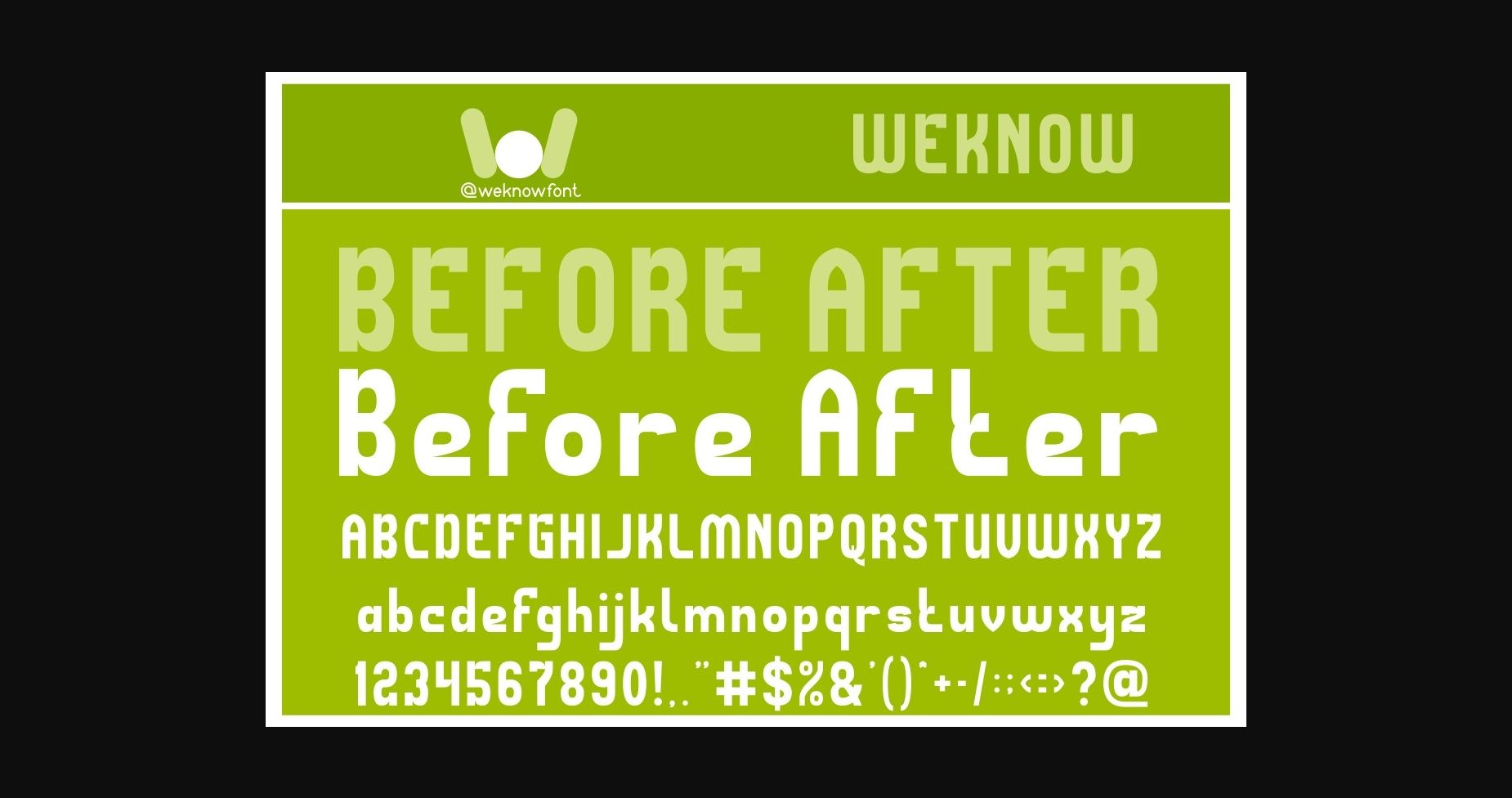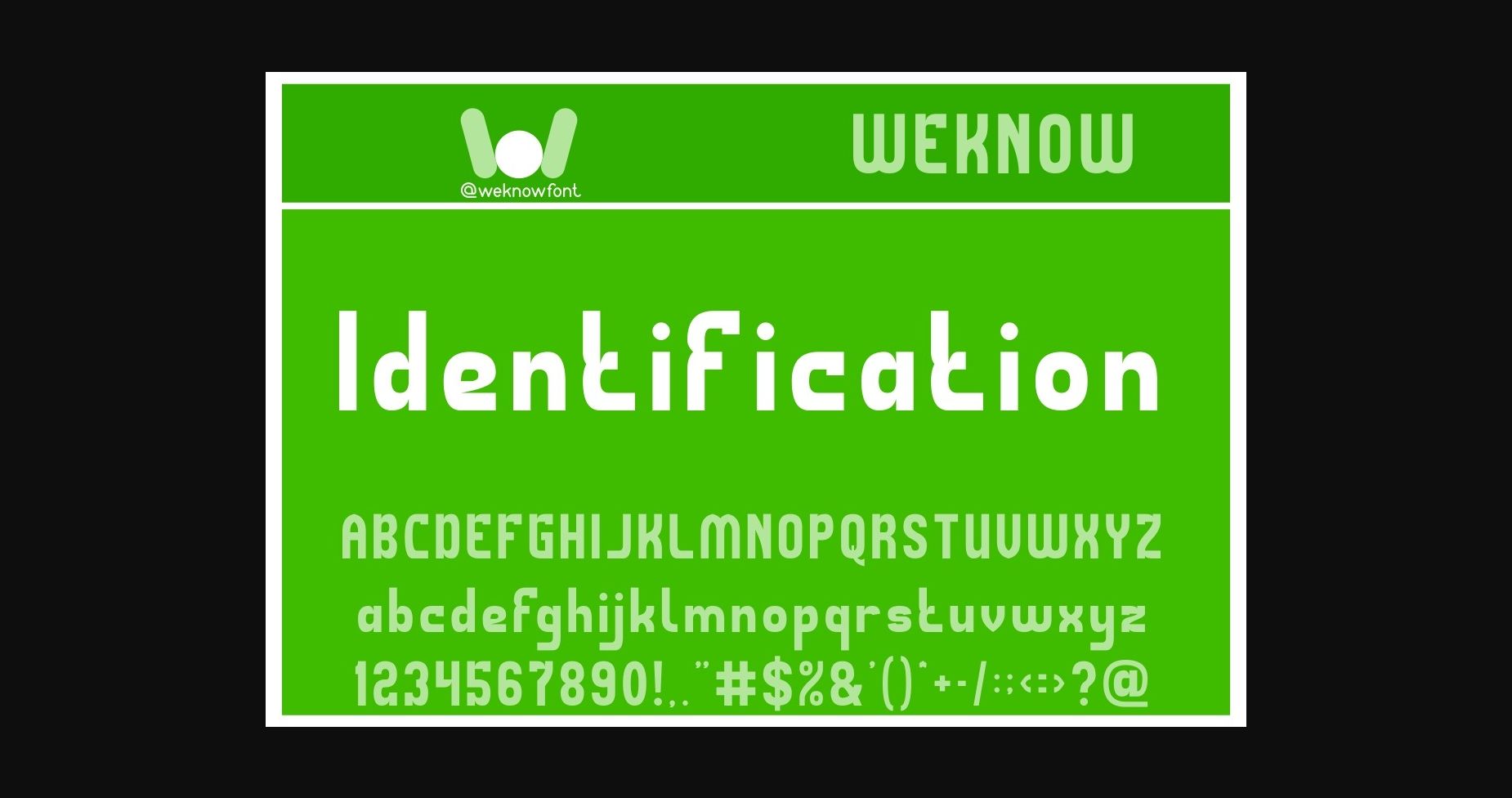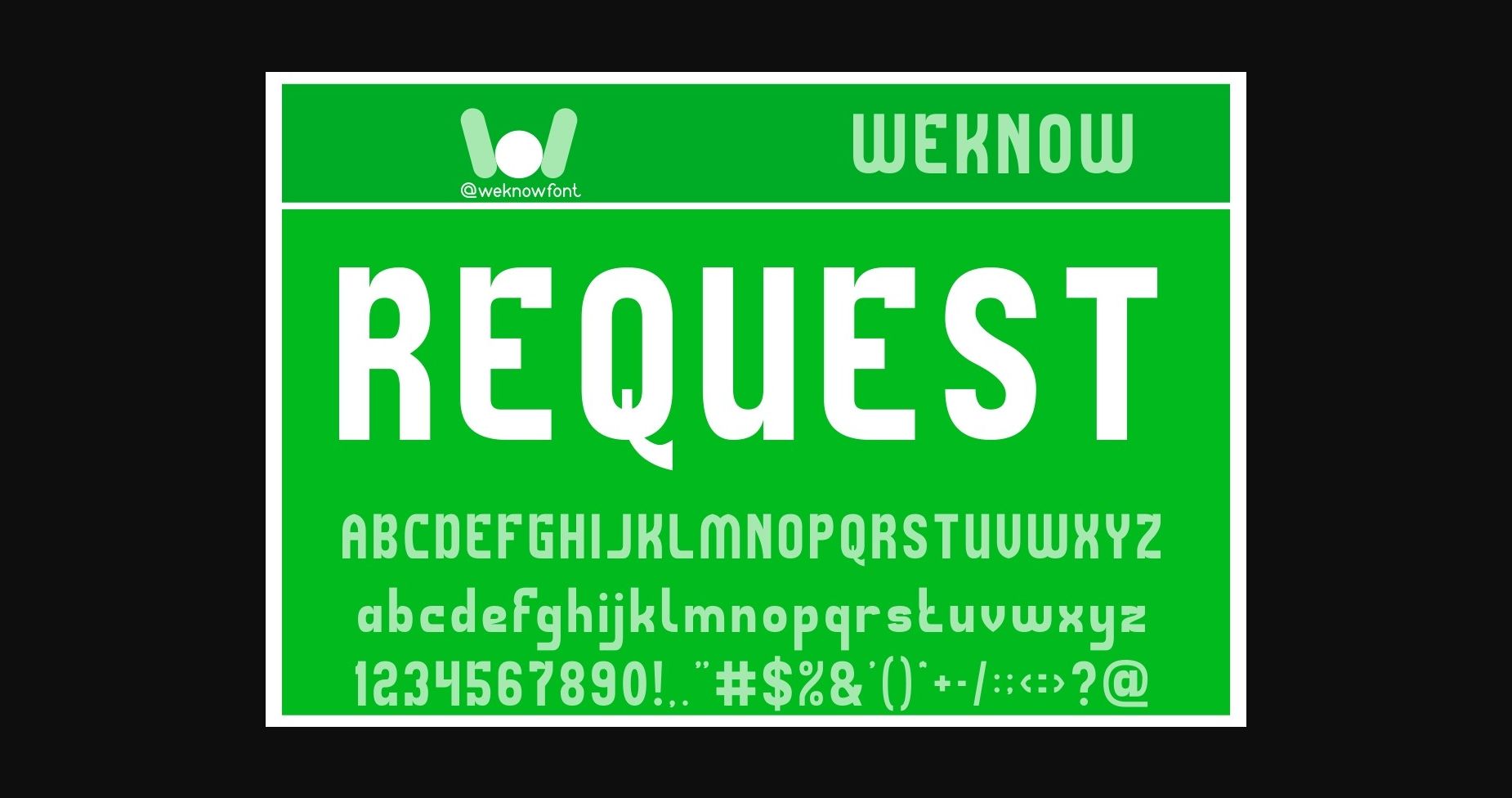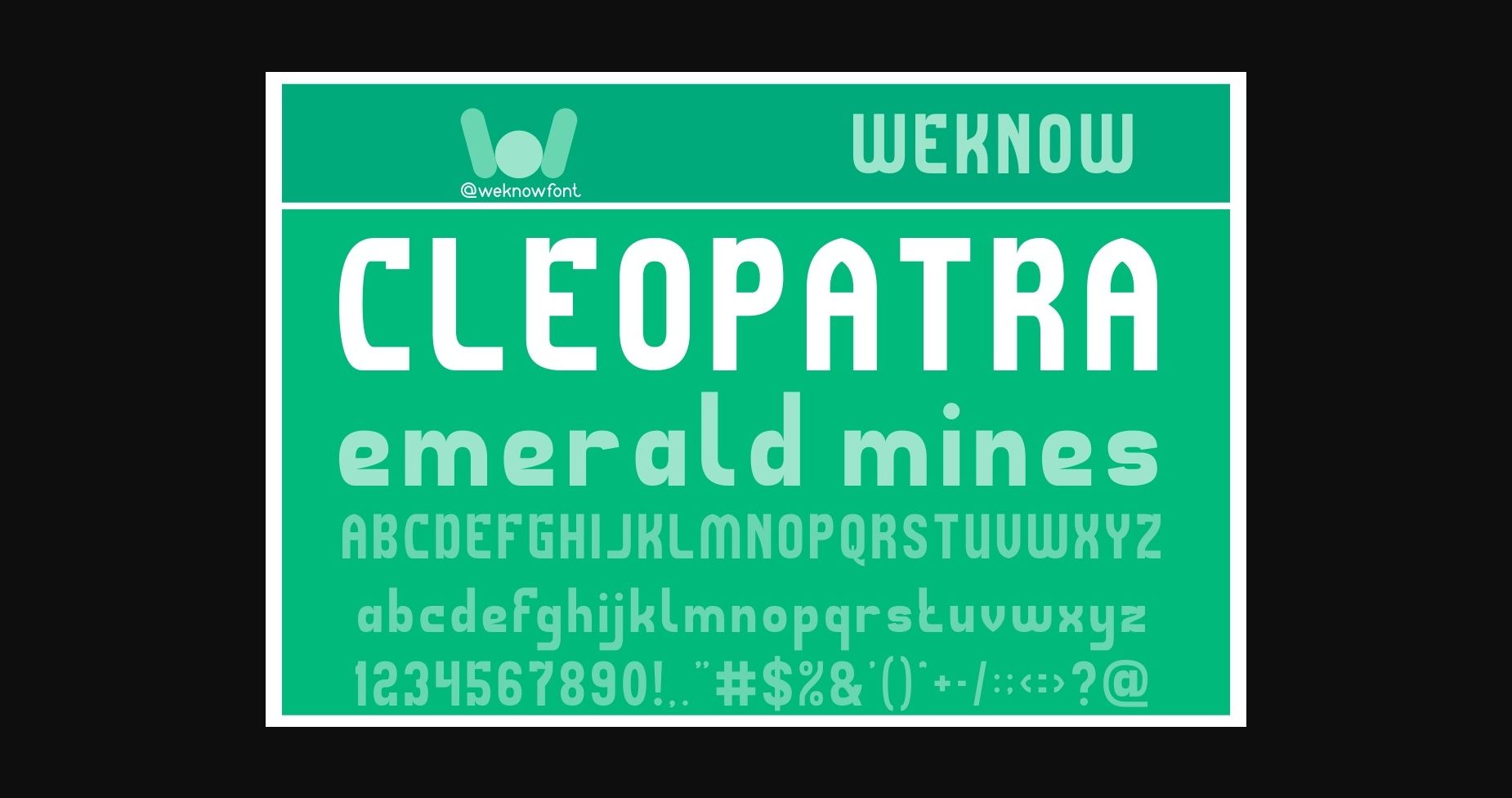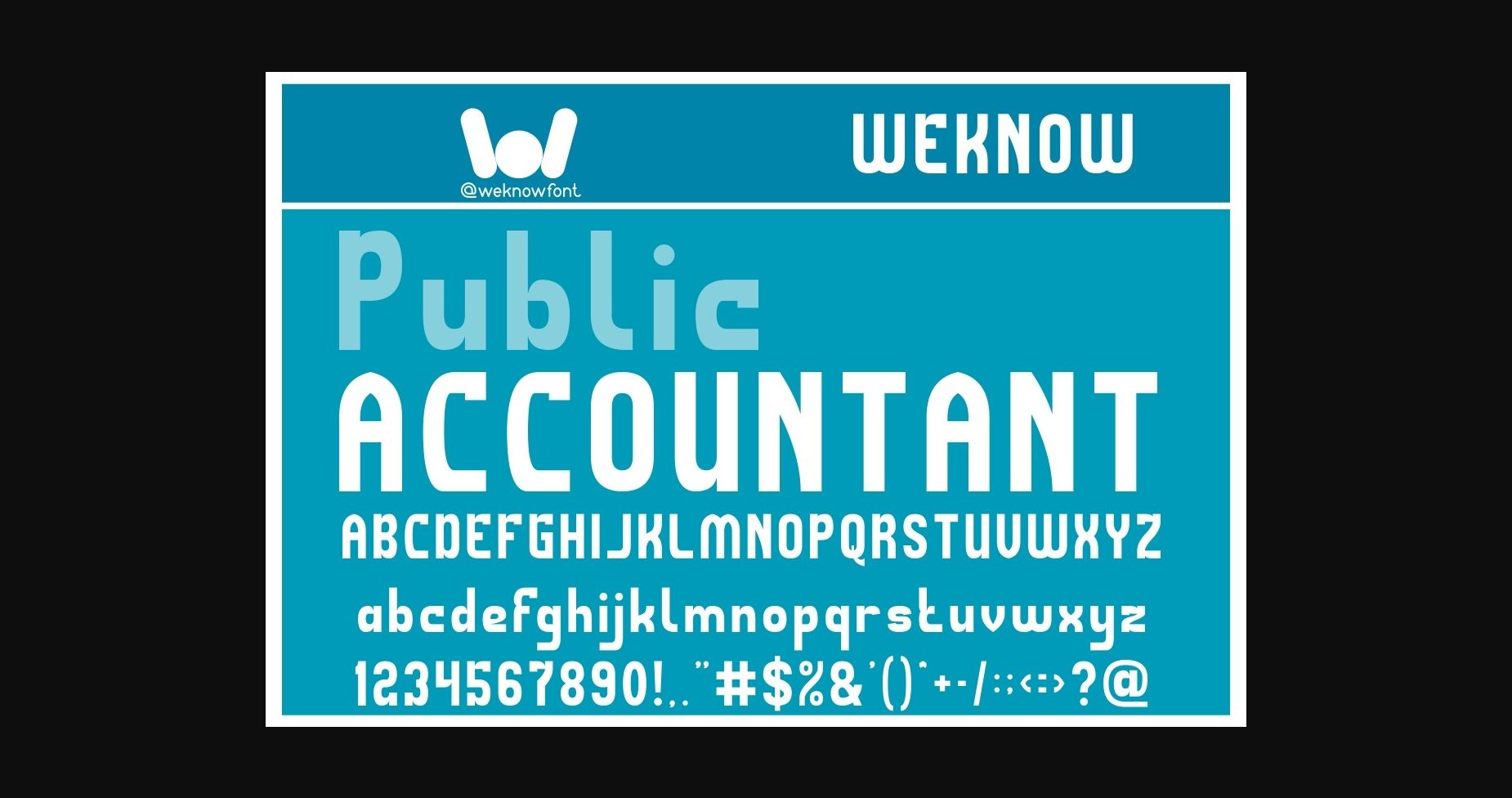
Before After Font
About Before After Font
Before After is a basic sans serif various display font, suitable for a logo, logotype, headline, corporate identity, brand identity, apparel industry, poster, music, movie, game, magazine, book, comic, cartoon, YouTube, Instagram, website, or any of your creative design projects.